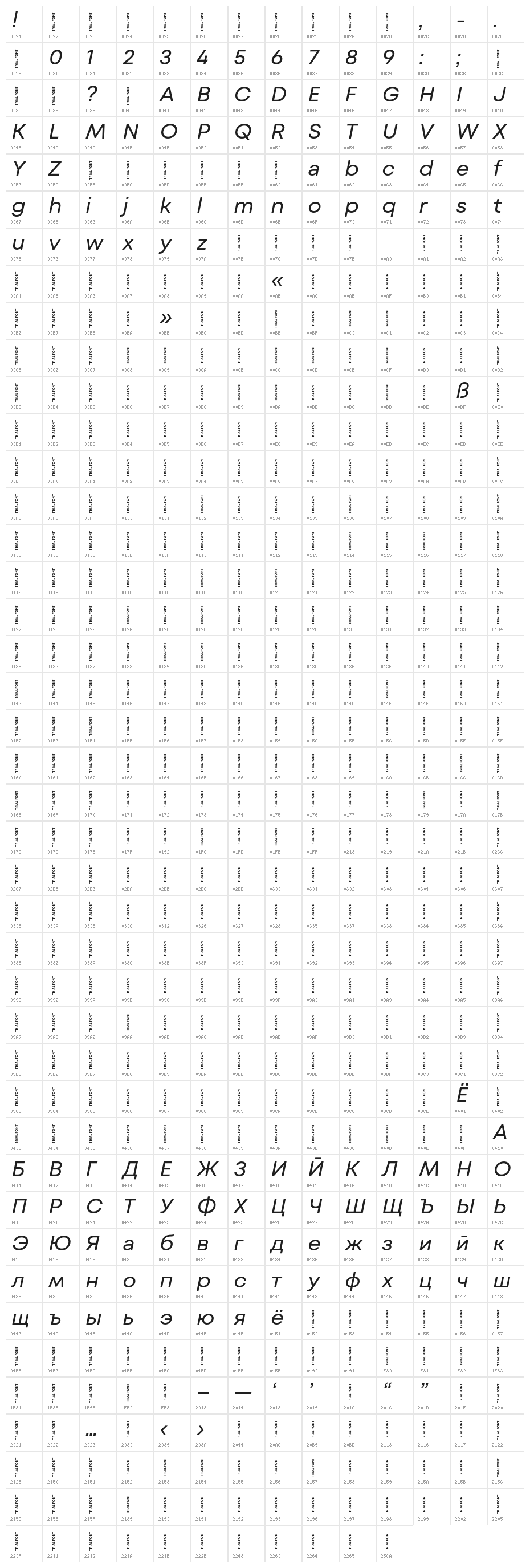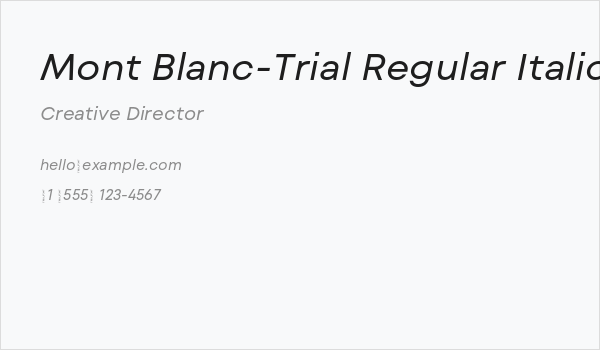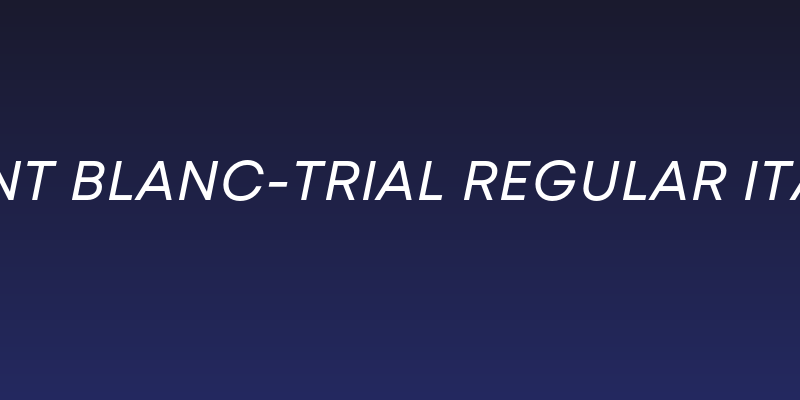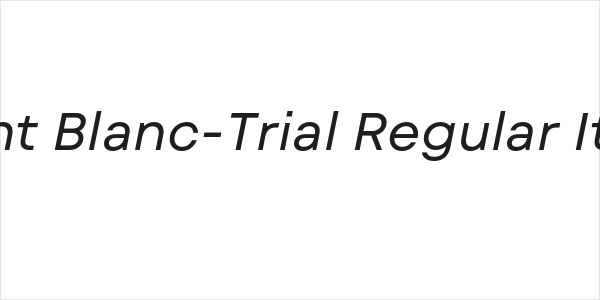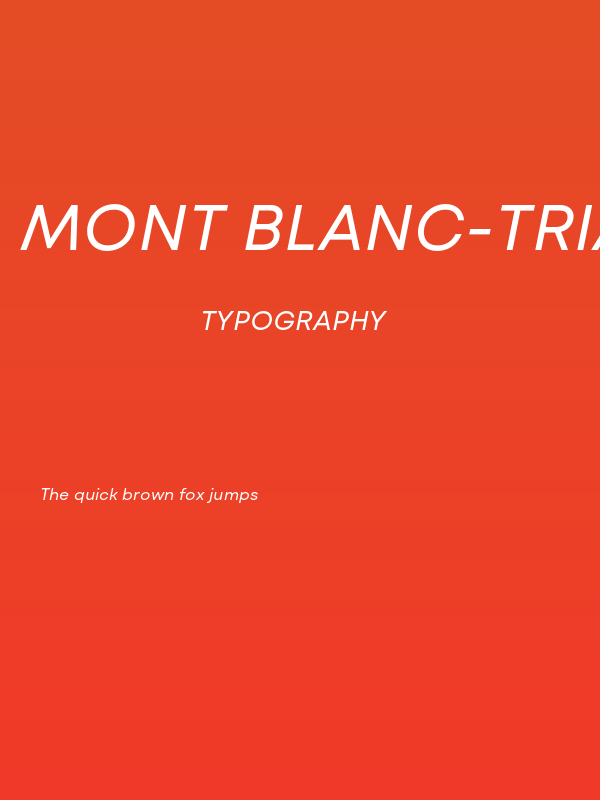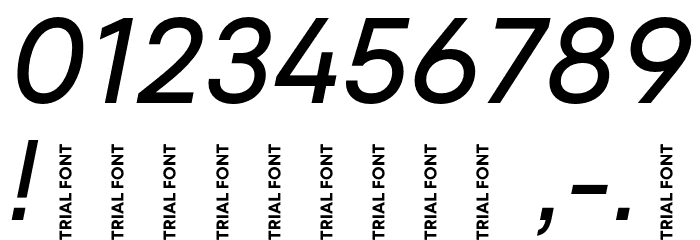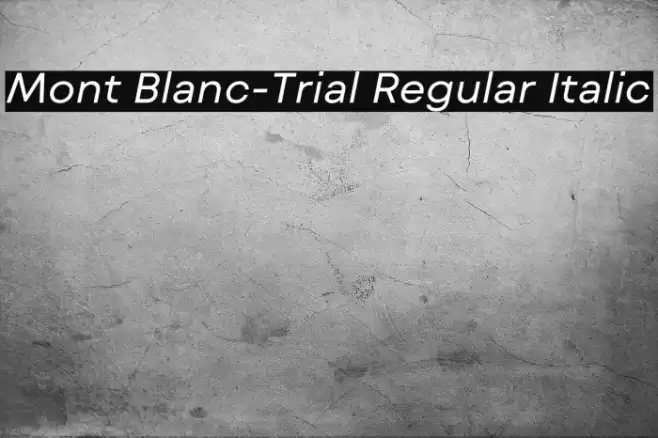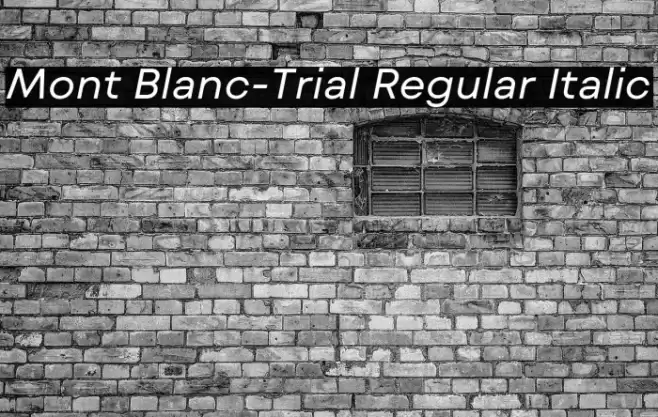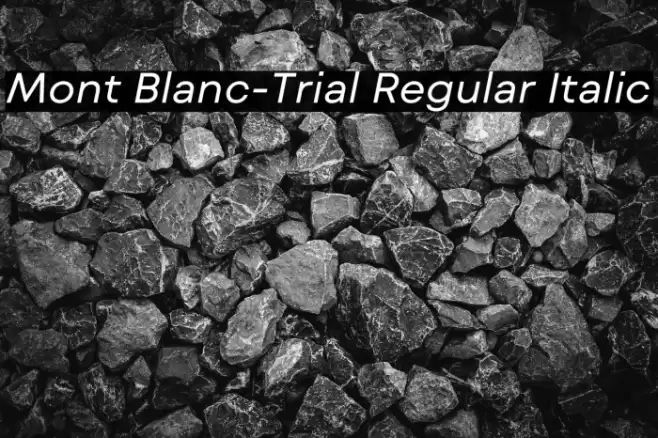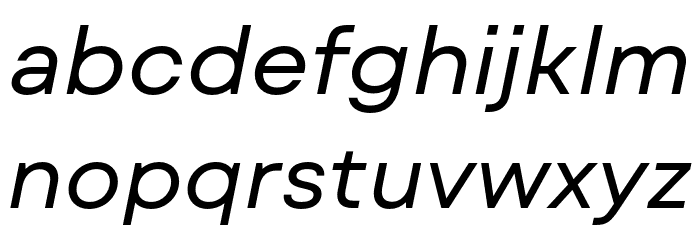
Mont Blanc-Trial Regular Italic Font
Mont Blanc-Trial Regular Italic Description
This font features a sleek and modern design with a slight italic slant, giving it a dynamic and elegant appearance. The characters are well-proportioned with a consistent stroke width, contributing to a clean and professional look. The uppercase letters are bold and assertive, while the lowercase letters maintain a smooth and flowing style. The numerals are clear and easy to read, making them suitable for various applications. Special characters are distinct and integrate seamlessly with the overall design. The font's versatility makes it ideal for both digital and print media.